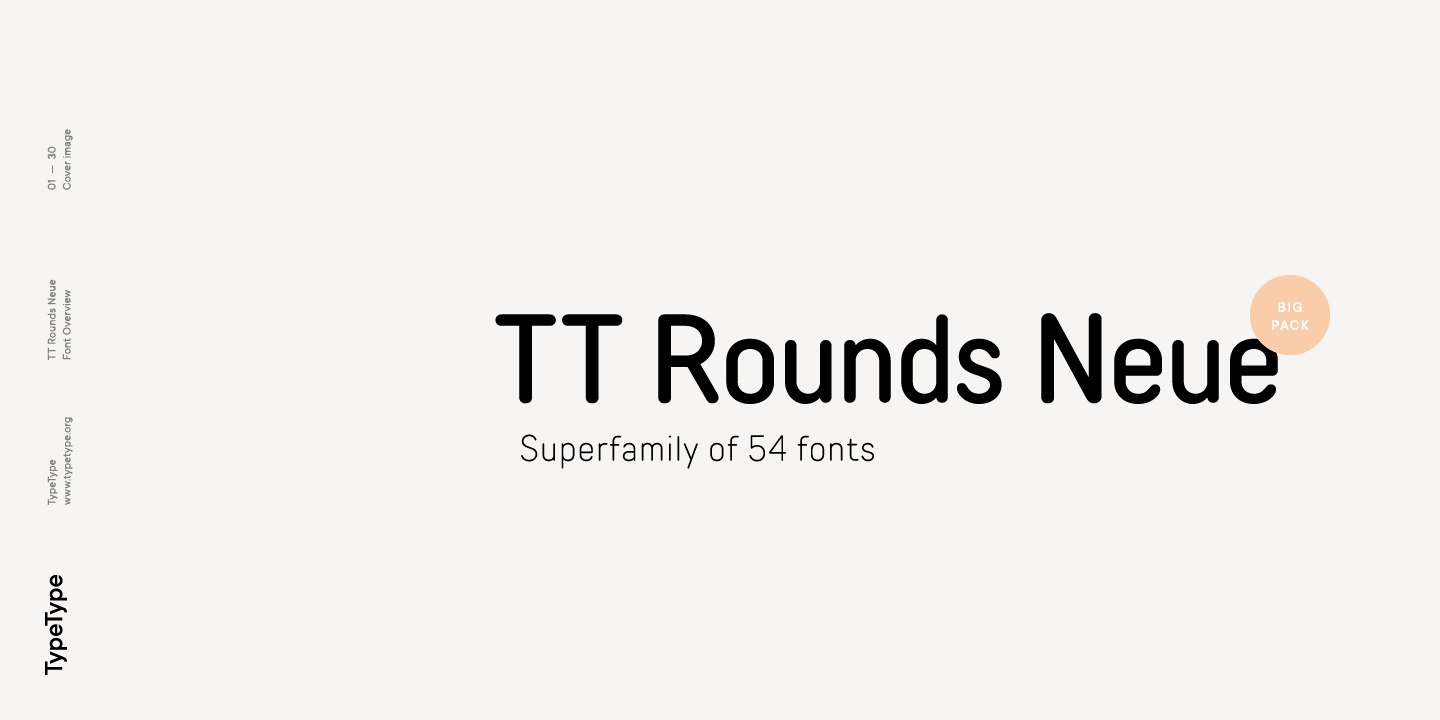
TT Rounds Neue Font
TT Rounds Neue Font is perfect for friendly brand identities, children's educational materials, tech startup logos, modern app interfaces, playful product packaging, contemporary signage systems, creative agency branding, innovative web design, social media graphics, and approachable corporate communications.
What makes TT Rounds Neue Font so exciting is its revolutionary approach to combining geometric precision with organic warmth through perfectly rounded letterforms that create an instantly approachable yet professionally sophisticated visual language. This innovative typeface represents the evolution of rounded typography, featuring characters that seem to radiate friendliness and accessibility while maintaining the structural integrity and clarity demanded by modern digital applications. The font's harmonious design elements perfectly balance playful personality with serious functionality, creating an indispensable tool that communicates innovation, trustworthiness, and human-centered design principles.
TT Rounds Neue Font comes in multiple font families including Regular, Bold, Light, Italic, Bold Italic, Thin, Medium, and Display variations. Each family member maintains the core rounded characteristics while offering different personality levels and stylistic approaches to suit various contemporary design requirements.
The geometric precision in TT Rounds Neue Font makes it particularly effective for technology companies and digital platforms where conveying both technical expertise and user accessibility is crucial for market success. Its optimized letterforms work exceptionally well across digital screens and print applications, maintaining consistent visual appeal whether used for mobile app interfaces or large-scale environmental graphics.
Modern design professionals recognize how TT Rounds Neue Font transforms ordinary corporate communications into engaging, approachable brand experiences that build trust and connection with diverse audiences. The typeface's comprehensive character set includes extensive international language support and advanced OpenType features that accommodate complex branding requirements and global market applications.
For creative professionals serving tech startups, educational technology, and human-centered brands, TT Rounds Neue Font serves as the ultimate foundation for establishing memorable visual identities that capture the essential qualities of technical innovation, user accessibility, and friendly professionalism that define successful contemporary brands in competitive digital markets.